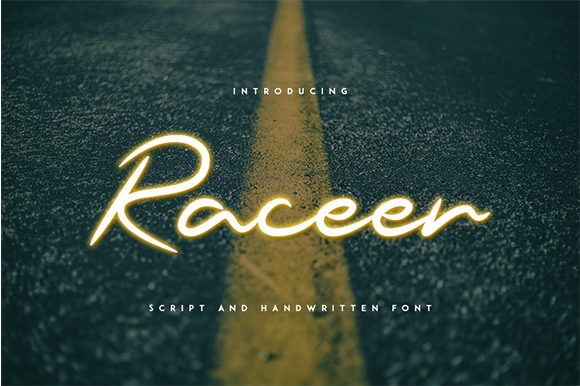
Introducing Raceer Font - The Gateway to Astonishing Designs
The Raceer Font, a spectacular script font, is an artistic masterpiece that will ignite your design prowess and turn your creative visions into a mesmerizing reality. This dynamic font, meticulously crafted by the esteemed Justlett, exudes a swift and flowing energy that effortlessly captures the essence of motion.
With its captivating personality, the Raceer Font transcends merely being a font; it is an instrument of creative liberation. It propels you into a realm of boundless possibilities, empowering you to transform ordinary designs into extraordinary works of art. Whether you're a seasoned designer or just starting your design journey, Raceer Font is your key to unlocking captivating visual expressions.
Raceer Font's energetic strokes bring a sense of animation to your designs, making them leap off the page and captivating your audience's attention. Its graceful curves and fluid lines evoke a feeling of movement, drawing the viewer's eye through your designs with an irresistible pull.
Unleash the Power of Raceer Font:
- Add a touch of elegance to your wedding invitations, making them a cherished keepsake for years to come.
- Create stunning social media posts that stand out from the crowd, ensuring your brand's message cuts through the digital clutter.
- Craft eye-catching logos and branding materials that leave a lasting impression on your customers, solidifying your brand's identity.
- Design captivating posters and flyers that demand attention, enticing your audience to engage with your events or promotions.
- Elevate your marketing materials to the next level, capturing the hearts and minds of your target audience with captivating brochures, flyers, and newsletters.
With Raceer Font, the boundaries of creativity dissolve, allowing you to embark on a journey of self-expression and visual storytelling. Its versatility knows no bounds, making it the perfect choice for a diverse range of design projects. Unleash your inner artist and let Raceer Font be your muse, transforming your designs into masterpieces that spark emotions and leave an indelible mark on your audience.